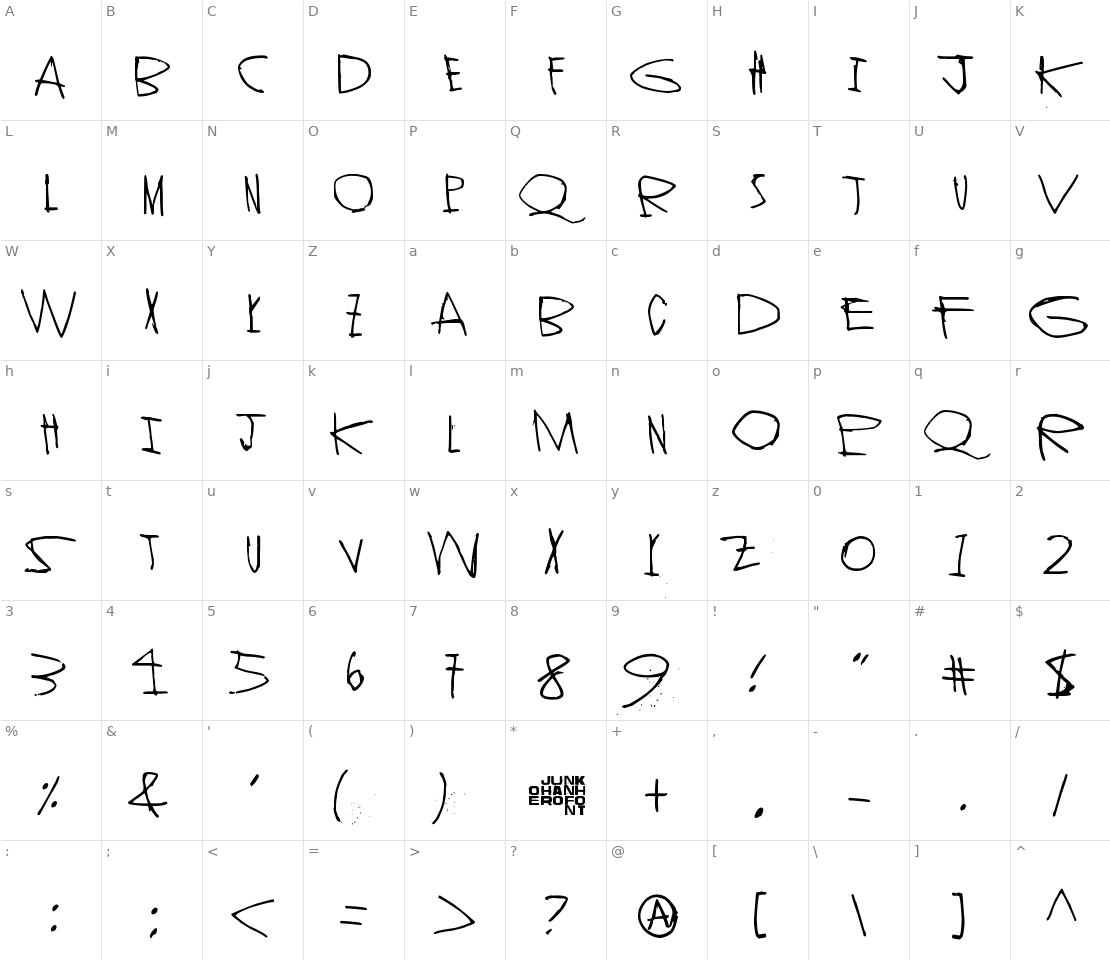
Stranger In You
Stranger In You is a raw, scratchy handwritten face from junkohanhero that feels like someone scrawled it in a hurry with a dying pen. The letterforms are uneven and rough, with a grunge edge that keeps it from feeling friendly or approachable. Best for posters, zine layouts, and anything that needs type with a restless, slightly confrontational energy.